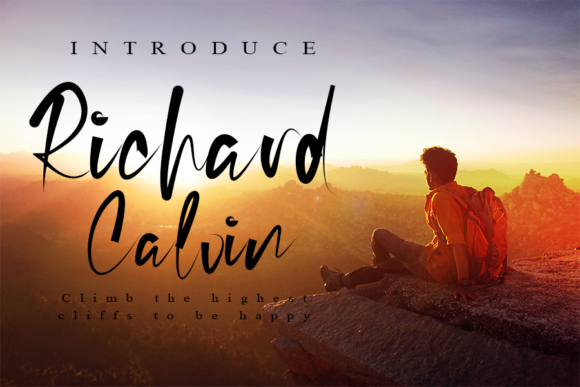
Richard Calvin: The Font That Makes Your Campaigns Stand Out
It was a typical morning in the marketing department, and I was deep into finalizing visuals for our upcoming product launch. We had a tight timeline, and every detail mattered. As I reviewed the latest draft of the campaign graphic, I paused—something felt off. The text was clear, but it lacked that personal touch we needed to connect with our audience. That’s when I remembered Richard Calvin.
A Handwritten Font with Personality
Richard Calvin is more than just a font—it’s a mood. It’s the kind of handwritten style that feels like a friend writing a note on your phone. With its friendly, casual feel, it brings warmth and approachability to any design. Whether you're crafting Instagram posts or designing calligraphy-style banners, Richard Calvin adds a human element that digital content often lacks.
What makes Richard Calvin special is its versatility. It works well in both light and dark backgrounds, which is crucial for social media graphics where contrast can make or break readability. Its soft curves and natural flow give it a playful yet professional edge, making it ideal for brand campaigns that want to feel both modern and personal.
Using Richard Calvin in Real Campaigns
Let’s take a real example: our recent seasonal sale. We needed a banner that would grab attention quickly while still feeling inviting. After testing several fonts, we settled on Richard Calvin for the headline. The result? A clean, eye-catching display that made our discount feel like a personal invitation rather than a cold sales pitch.
For Instagram posts, Richard Calvin shines as a headline font. Pair it with a bold sans serif like Montserrat for balance, and you have a powerful combination that works across mobile screens. On Pinterest, it’s perfect for pin titles, adding a handcrafted feel that aligns with the platform’s visual storytelling nature.
When designing YouTube thumbnails, Richard Calvin can be used for the main title or tagline. Its legibility at small sizes ensures that even in fast-scrolling feeds, viewers can read the key message without effort. For webinar promotions, using Richard Calvin as a decorative title over a solid background creates a sense of urgency and excitement.
Readability Matters
One of the biggest challenges with script fonts is ensuring they remain readable on small screens. Richard Calvin handles this well, especially when paired with a clean sans serif for supporting text. This pairing not only improves readability but also enhances the visual hierarchy, guiding the viewer’s eye through the content smoothly.
On dark backgrounds, Richard Calvin stands out with its light, airy strokes. But don’t overlook its performance on light backgrounds either—its subtle texture gives it enough character without overwhelming the design. When used in overlays or image-based content, it maintains clarity even in complex compositions.
Font Pairing & Design Consistency
When choosing fonts for a campaign, consistency is key. Richard Calvin works best when paired with a clean, modern sans serif like Lato or Open Sans. These pairings create a balanced look that supports both the personality of the font and the professionalism of the brand.
If you’re looking for a more elegant feel, consider pairing Richard Calvin with a serif font like Georgia or Playfair Display. This combination can elevate the tone of your content, making it suitable for editorial-style designs or branded templates. For a more playful vibe, try combining it with another script or handwritten font for a cohesive, handcrafted aesthetic.
Always check the included styles, alternates, and ligatures before finalizing your design. Richard Calvin offers multiple weights and formats, giving you flexibility for different design needs. Whether you need a bold headline or a subtle signature, the font has you covered.
Branding with Confidence
Richard Calvin isn’t just a font—it’s a tool for building brand identity. Its friendly, approachable style aligns perfectly with brands that want to feel authentic and relatable. From course launches to online shop promotions, this font helps reinforce brand voice and values through consistent typography.
When designing promotional content sets, consider how Richard Calvin can support your overall message. Use it for headlines, callouts, and decorative elements to add visual interest without compromising clarity. In email banners or landing page headers, its readability ensures that your message lands effectively, even in fast-paced digital environments.
Ultimately, Richard Calvin is a font that bridges the gap between creativity and functionality. It’s designed for marketers, content creators, and designers who want to make their messages stand out without sacrificing clarity. Whether you’re preparing a launch graphic, building a social media series, or designing a thumbnail set, Richard Calvin is a reliable choice that elevates your campaign with style and substance.